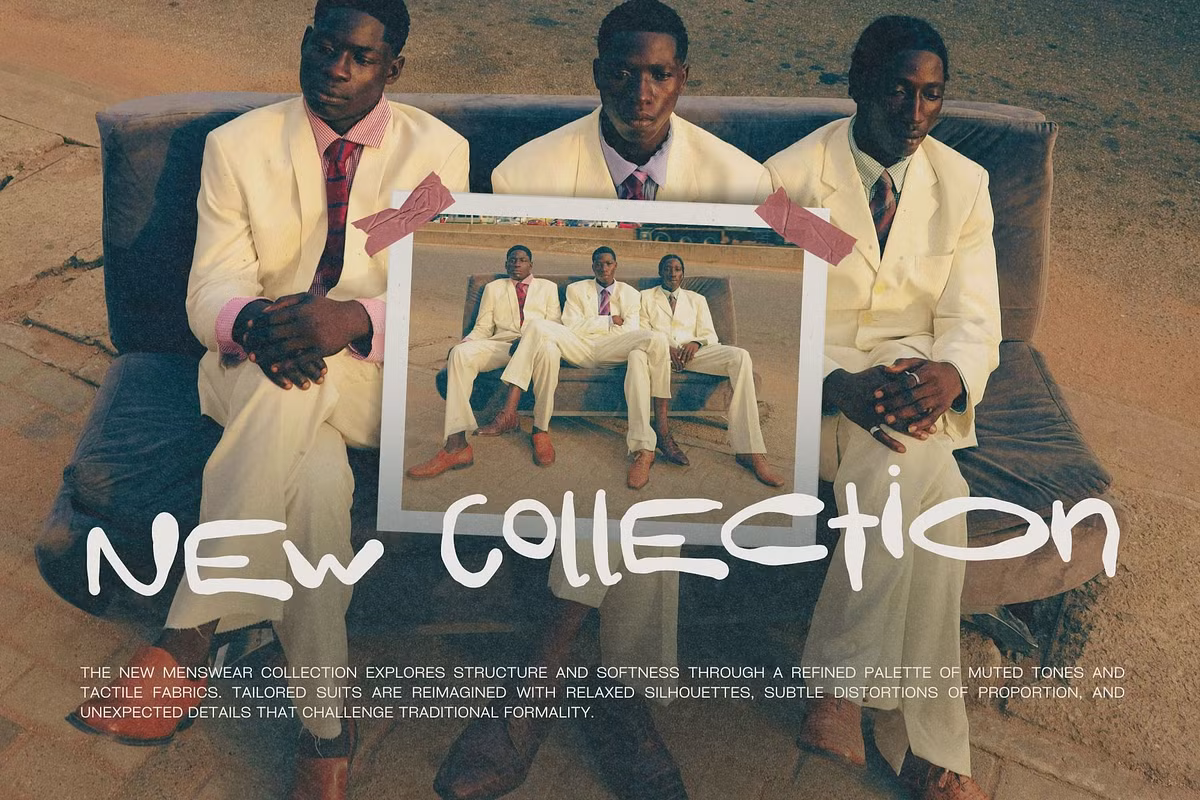
Lost Inside: Distorted Experimental Display Font for Bold Design
Lost Inside is more than just a font – it’s an experiment that plays with emotions and visuals. The idea is to create a sense of unease, like something’s not quite right. It does this by breaking the rules of traditional typography, with letters that are distorted and a bit unstable. This font is meant to get a reaction, to make you feel something, even before you’ve read the words.
It’s a powerful tool for designers who want to push boundaries and spark thoughts. By using Lost Inside, you can add a level of tension and emotion to your work, making it more thought-provoking and engaging.
The distorted letterforms are designed to challenge your expectations, to make you look twice, and to think about what you’re seeing. Whether you’re a graphic designer or a creative professional, Lost Inside can help you create something that’s truly unique and memorable.
The look of Lost Inside is really unique and tries out new things, with letters that seem a bit off and unsteady. This makes the whole thing feel kind of tense, which grabs your attention right away. The way it looks is very now, with a feel that’s all about being okay with things not being perfect and showing how you feel.
Lost Inside is different from other fonts because it doesn’t follow the usual rules of uppercase and lowercase letters. It gives you two sets of letters that you can mix and match to create something unique. This freedom lets designers try out new and interesting combinations that can add a lot of character to their work.
The end result is a font that feels like it’s moving and changing, and can express a wide range of feelings in a really powerful way. It’s like the font is alive and can help you convey emotions that would be hard to express with a more traditional typeface.
Character Sets
What really makes Lost Inside special is the wide range of characters it offers. You get uppercase and lowercase letters, numbers, and all the punctuation you need. This means you can create all sorts of text-based designs without having to worry about them looking messy or being hard to read.
The font has everything you need to express yourself, from basic letters and numbers to more complex punctuation marks, making it perfect for creating unique and stylish text compositions.
What really makes Lost Inside stand out is that it lets you try out new things. You can switch between different letter shapes and create unique patterns and textures, which makes your designs look good and feel special. Another great thing about Lost Inside is that it works with many languages, so designers can talk to people in different languages without losing the special look that makes their work unique.
Use Cases
Lost Inside is perfect for situations that call for big, bold statements. There are some really great ways to use this font, and here are a few examples of where it can really make an impact.
- Experimental Graphic Design: Use Lost Inside to create visually arresting posters that challenge the viewer’s perception and evoke emotional responses.
- Music Covers and Band Visuals: In the music industry, album covers and promotional materials benefit from the emotional impact of Lost Inside, making it ideal for bands looking to convey their artistic identity.
- Fashion Editorials: The fashion world often embraces the avant-garde, and Lost Inside provides the bold typographic choice needed to make a statement in editorials and campaigns.
- Conceptual Branding: Brands looking to communicate a specific attitude or emotion can utilize Lost Inside to craft a memorable visual identity that stands out in a crowded market.
This font is really great for projects that combine different art forms, like collages. Its unique style adds to the overall look and feel of the artwork, making it even more interesting and creative.
When using Lost Inside, it’s essential to consider how it pairs with other typefaces. While Lost Inside is bold and expressive on its own, complementing it with more subdued fonts can create a balanced design. Here are some pairing suggestions:
- Sans-Serif Fonts: Pair Lost Inside with clean, geometric sans-serif fonts like Montserrat or Helvetica. This combination allows Lost Inside to stand out while maintaining overall readability.
- Serif Fonts: For a classic look, try pairing it with a modern serif font, like Playfair Display. The mix of old and new styles can be really interesting.
- Monospaced Fonts: To give your design a modern and techy look, try using a monospaced font, like Courier New, with Lost Inside. This combination creates a really cool, experimental feel.
- Handwritten Fonts: Using a handwritten font can really make your designs feel more personal, balancing out the boldness of Lost Inside.
When you combine these two elements, it can add a lot of depth and character to your work, making it feel more unique and creative.
Lost Inside is not just a font, it’s a way to express yourself. It’s a tool that lets you try new things and show how you feel. The letters are unique and can be changed to fit your needs, so you can make designs that really stand out.
If you’re making posters, music covers, or trying to create a brand, Lost Inside can help you make something amazing. It adds a lot of feeling to your work, so don’t be afraid to use it and let your imagination run wild. With Lost Inside, you can take your projects to a whole new level and make them truly special.